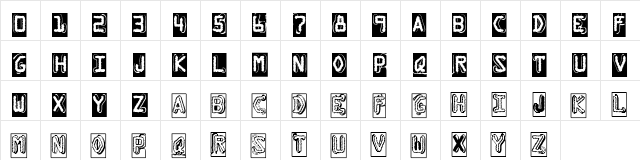
Dymo Grunge Bubble Regular
Design Context for Dymo Grunge Bubble Typeface
Dymo Grunge Bubble trades polish for personality, using distressed and eroded forms to bring grit and attitude to creative work.
Suited to punk-influenced zines, underground music branding, streetwear, and raw, anti-corporate design.
Pro Tip: Pair Dymo Grunge Bubble with intentionally raw or lo-fi design elements. Fighting against it with overly polished surroundings will undermine its personality.